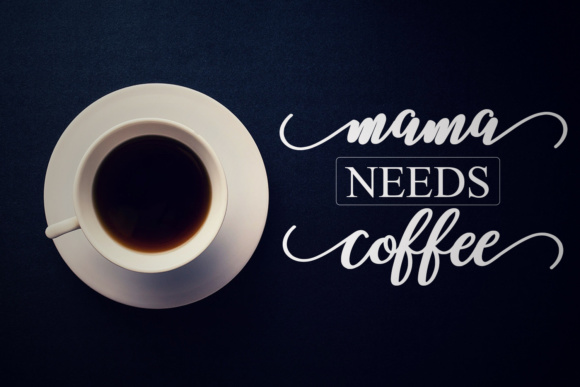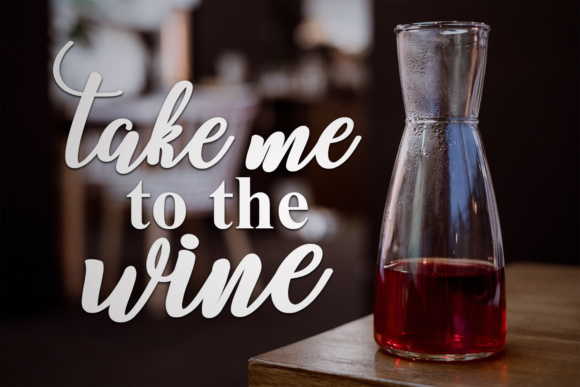
Belinda Script Font
About Belinda Script Font
The Belinda is a new, fresh & modern script with a handmade calligraphy style. It’s beautiful on invitations, greeting cards, branding materials, business cards, quotes, posters, and more!